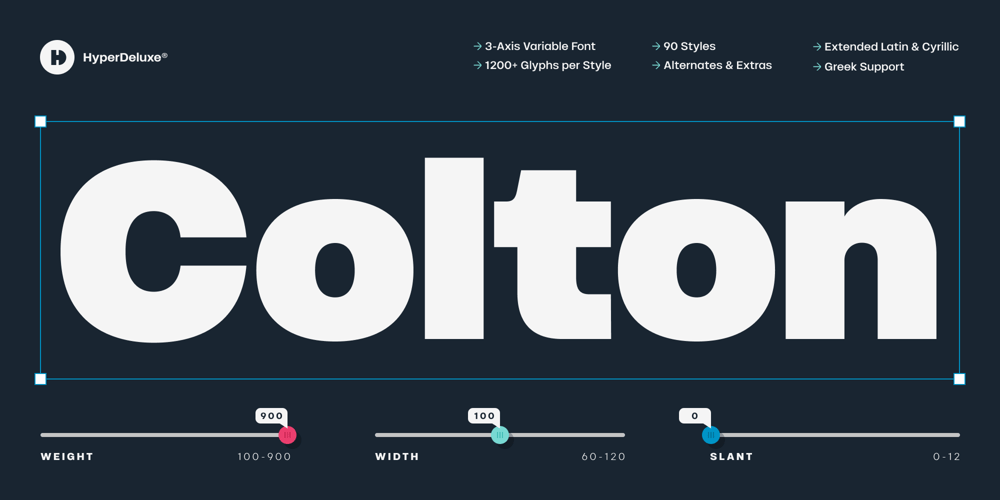
HD Colton Font Family was designed by Daniel Jones and published by HyperDeluxe. HD Colton contains 91 styles and family package options. HD Colton is a 90-style super-sans from London Design Studio HyperDeluxe®. Using a combination of horizontal & vertical terminals along with squarish ovals, it is built with a confident structure that feels so much more than a neutral sans, it feels iconic.Engineered in 5 widths, compressed to extra wide, and in nine weights, HD Colton features a huge 90 styles that will offer your brand ultimate flexibility and variation in one font family.The black weights will help bring prominence to your brand while the light to mid weights will help you tell your story at a smaller size.HD Colton includes 1200+ glyphs per style, providing you with a workhorse sans that supports 200+ languages including extended Latin, extended Cyrillic and basic Greek. Also included are 5 stylistic sets, 2 arrow sets & numerous OpenType features (see last poster for complete list).The HD Colton complete family package comes with a single, 3-axis variable font so you’ll have an infinite amount of combinations and uses for you to experiment with and add that touch of finesse to your visuals. Variable fonts are tech friendly providing smaller sizes for developers to work with, while also being responsive and used for motion design on the web. HD Colton key features: 3-Axis Variable Font. 90 Styles. 1200+ Glyphs Per Style. 5 Widths (Compressed, Condensed, Regular, Wide, Extra Wide). 200+ Languages Supported. Extended Latin, Extended Cyrillic, Greek Support. Stylistic Alternates for some key glyphs (J, Q, G, l, &, Arrows). Extensive OpenType features.